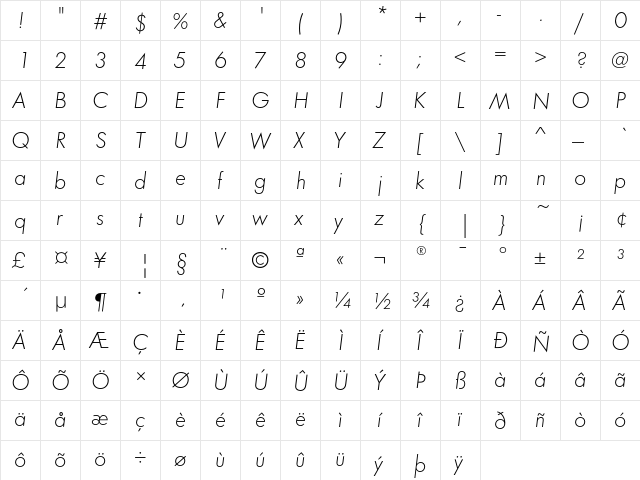
FuturaEF LightObl
Design Context for FuturaEF Typeface
FuturaEF channels digital-age aesthetics through its sharp, structured letterforms — ideal for brands that want to signal innovation. The delicate stroke weight brings airiness and refinement to layouts.
Pro Tip: Try FuturaEF with generous letter-spacing in UI labels and navigation — the geometric forms benefit from room to breathe.